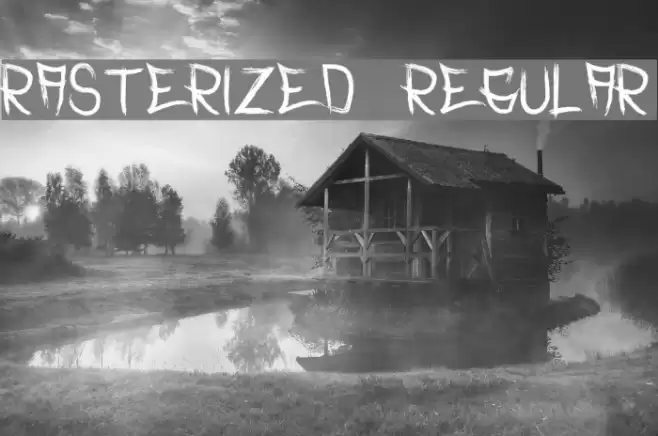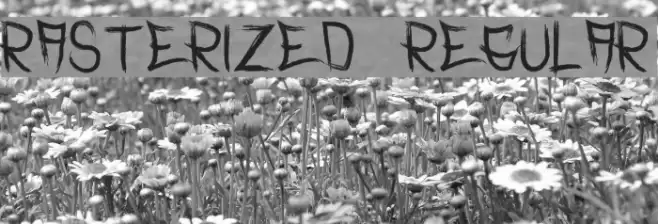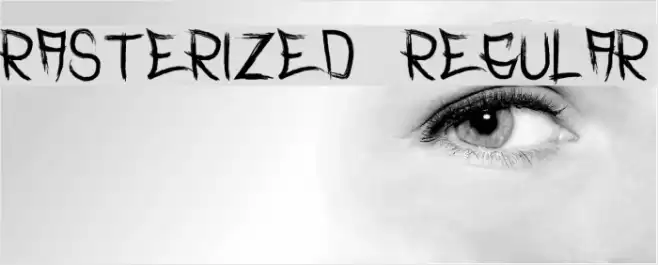
Rasterized Regular Font
Rasterized Regular Description
This font exhibits a bold, distressed style with a hand-drawn appearance, characterized by rough, jagged edges and a brush-like texture. The uppercase letters are particularly striking, with exaggerated strokes that give a sense of movement and energy. The lowercase letters maintain this dynamic quality, though they are slightly more restrained. The numerals and special characters follow the same aesthetic, ensuring consistency across the typeface. This font's unique, edgy style makes it suitable for projects that require a strong visual impact.
A bold, distressed font with a hand-drawn, brush-like texture from Script fonts.
- Proposed Projects: Ideal for album covers, posters, branding for edgy or alternative products, and any design needing a bold, artistic flair.